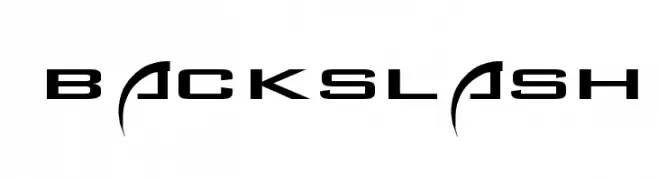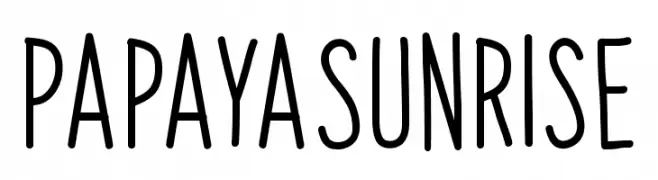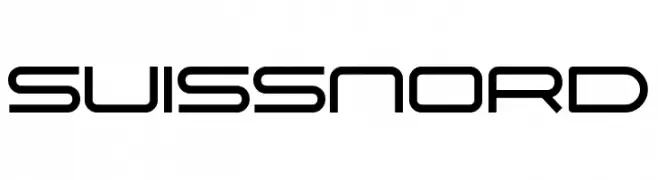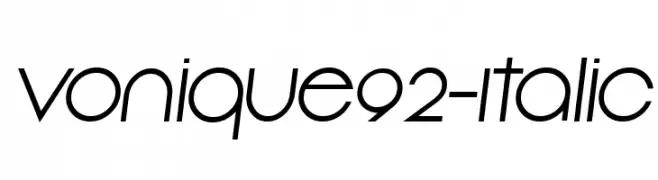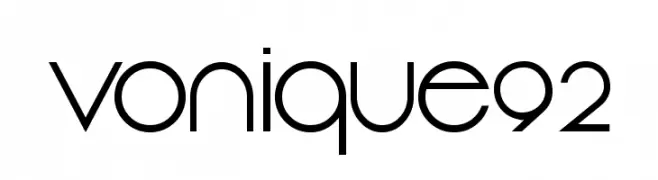
( www.finck.co )
A bold, textured font with a hand-drawn, chalk-like appearance.
( Fonts by Sharkshock )
A high-contrast serif font with elegant and refined characteristics.
( Jayvee Enaguas )
A bold, modern sans-serif font with a condensed and professional style.
( Sharkshock - Dennis Ludlow - www.sharkshock.net )
A playful, hand-drawn font with tall, narrow letters and a casual style.
( Sharkshock - Dennis Ludlow - www.sharkshock.net )
A bold, geometric font with a modern and clean design.
( Sharkshock - Dennis Ludlow - www.sharkshock.net )
A bold, condensed font with strong, impactful uppercase letters.
( Sharkshock - Dennis Ludlow - www.sharkshock.net )
A sleek, modern font with geometric and futuristic design elements.
( Sharkshock - Dennis Ludlow - www.sharkshock.net )
A sleek, modern italic font with geometric precision and clean lines.
( Sharkshock - Dennis Ludlow - www.sharkshock.net )
A modern, geometric font with sleek lines and a minimalist style.
( Baja La Luna Producciones - www.consultoragua.com/bajolaluna/fonts/ OFF SITE )
A futuristic, angular font with a sleek and modern design.